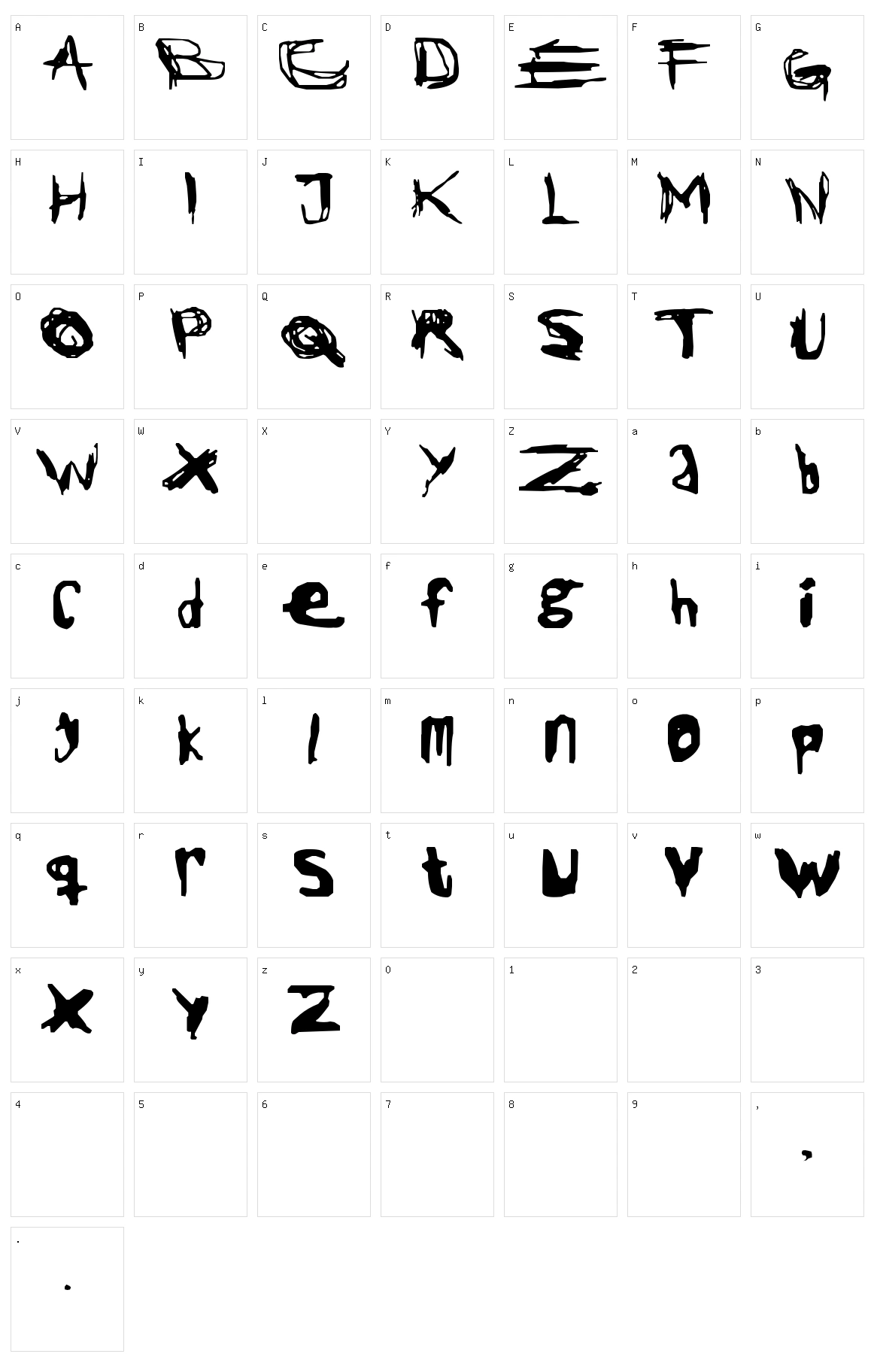
The free font Jack the Ripper is carefully designed by Mr.Fisk Fonts, showcasing a thoughtful balance of creativity and usability and falls under the Trash font style. When you download the ZIP file, it contains only 9.65 KB of font files, making it lightweight and quick to download. Please review the license details below to understand permitted usage and distribution rights. If license information is not available, we recommend using this font for personal projects only or contacting the author directly for commercial usage permissions.